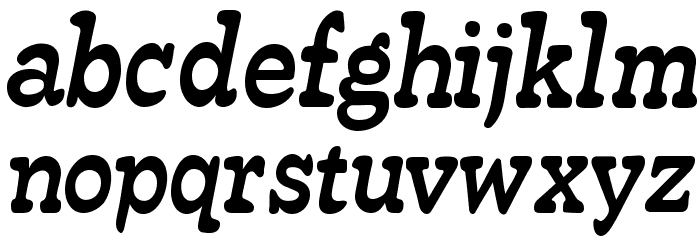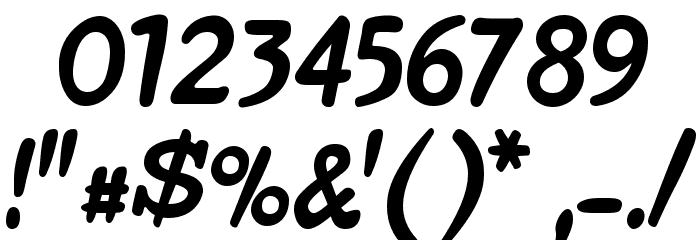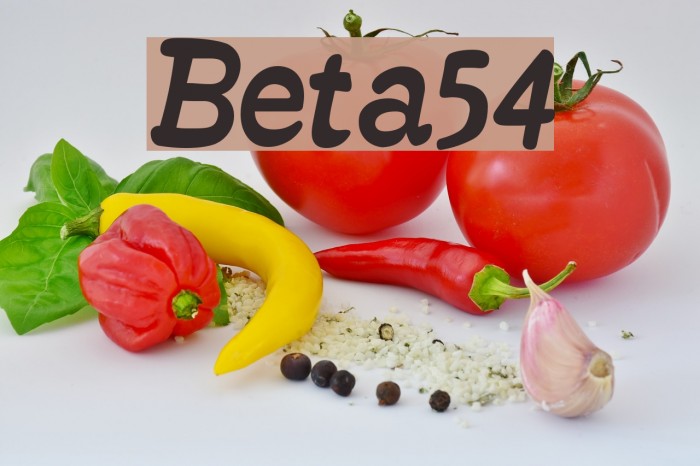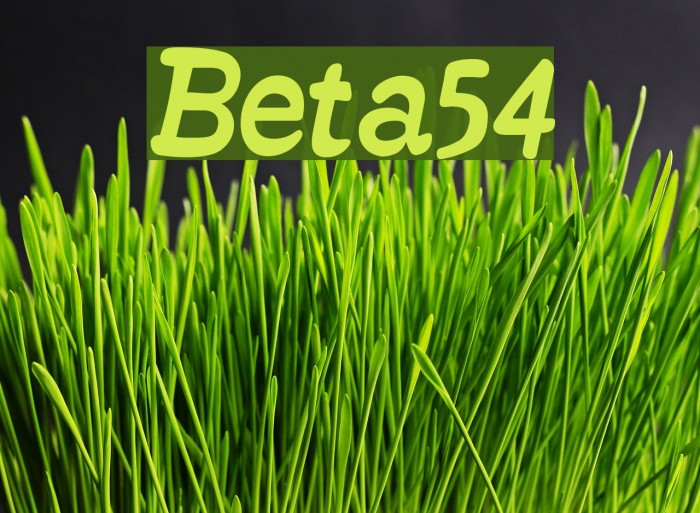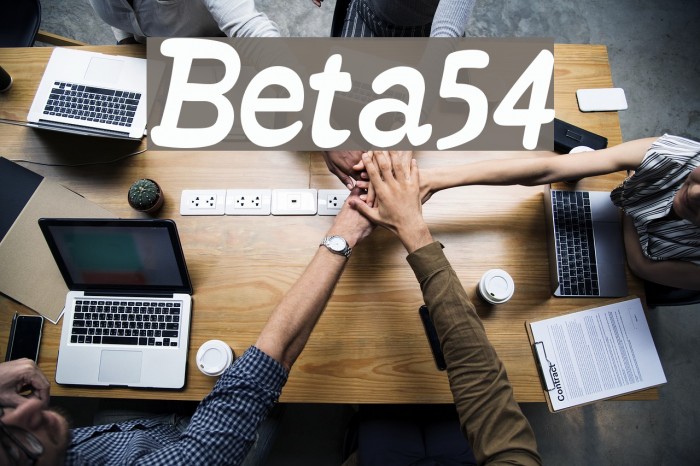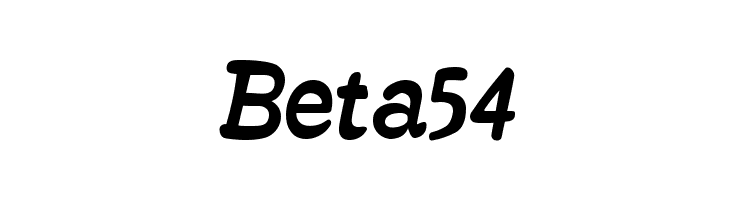
Beta54 Font
This font features a playful and dynamic style with a bold and rounded appearance. The characters have a slight slant, adding a sense of movement and energy. The uppercase letters are robust and well-defined, while the lowercase letters maintain a consistent flow with smooth curves. The numerals are clear and easily distinguishable, complementing the overall design. Special characters are creatively integrated, maintaining the font's lively aesthetic. This font is suitable for projects that require a fun and engaging look, making it ideal for creative branding and advertising.
A bold, rounded font with a playful and dynamic style.
- Proposed Projects: Ideal for branding, advertising, children's books, and playful designs.
- Overall Style: Playful and Dynamic